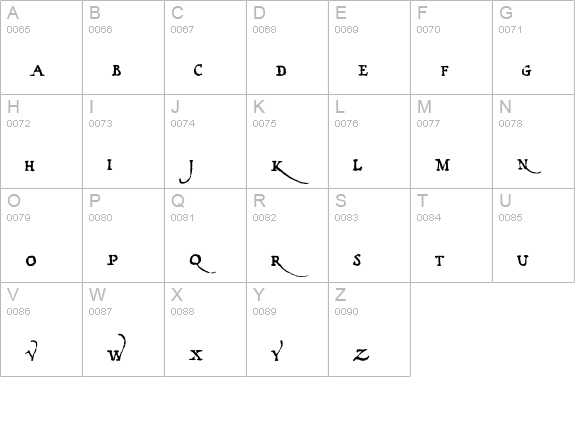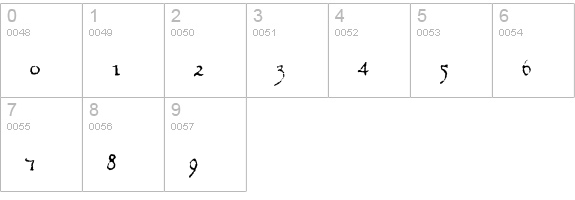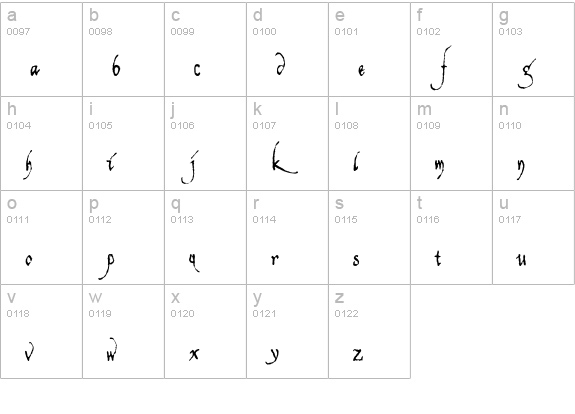
Americratika Font Details
Americratika is a beautifully crafted font that exudes elegance and sophistication. With its sleek lines and modern aesthetic, this font is perfect for a wide range of design projects, from branding to editorial design. The distinctive letterforms of Americratika bring a sense of timeless style to any text, making it an ideal choice for those looking to make a statement with their typography. What sets Americratika apart is not only its striking design, but also the fact that it is freely available to download at FontsMarket.com. This means that designers and creatives can access this stunning font without any cost, allowing them to bring their visions to life without any limitations. Whether you're working on a personal project or a client commission, Americratika is sure to elevate your designs and leave a lasting impression. Download Americratika today and discover the beauty and versatility of this exceptional font.